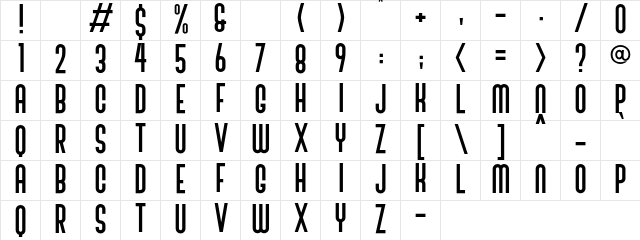
Bivoac Reguler Demo Regular
| Designer | Sabrcreative Studio |
Design Context for Bivoac Reguler Demo Typeface
Bivoac Reguler Demo is a composed and adaptable typeface that performs quietly and consistently across a wide range of design contexts.